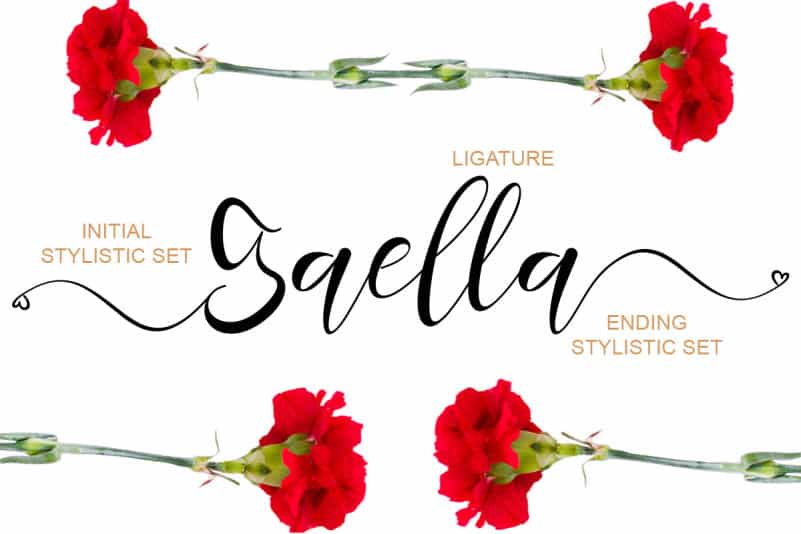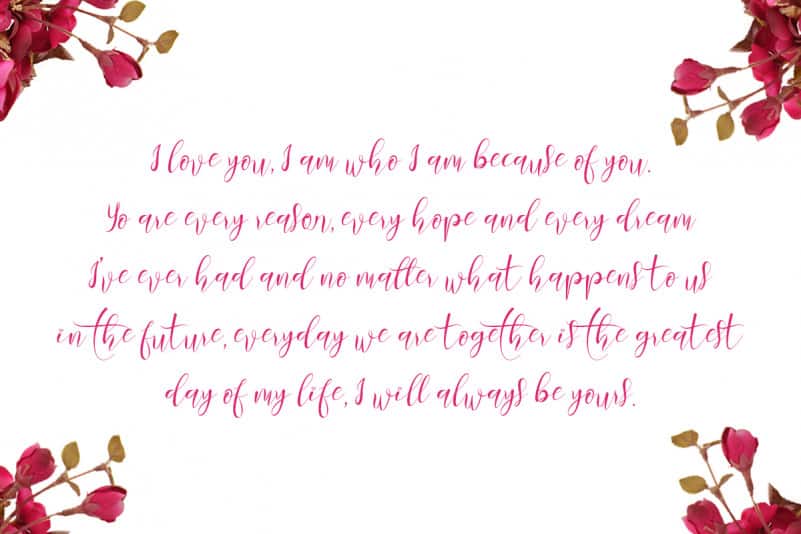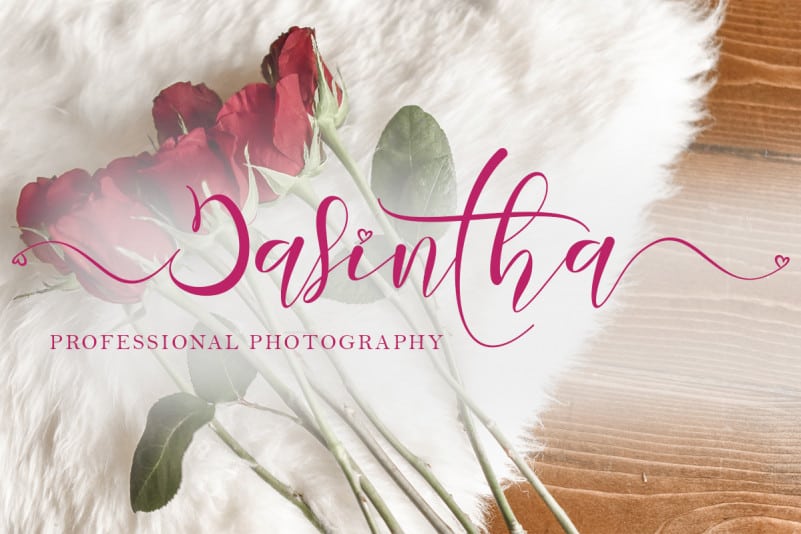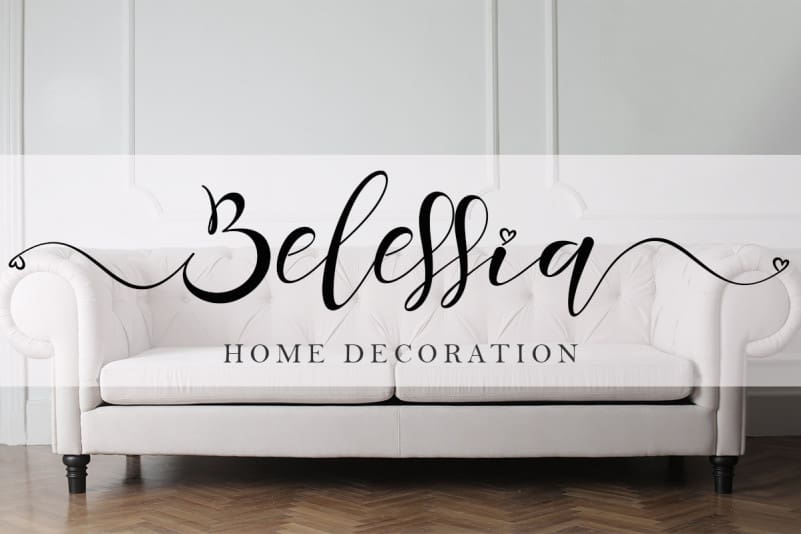
Monalissa Calligraphy Font is a very beautiful, high-quality font that is made with great love. This font can make your work more beautiful and elegant. This font is perfect for marketing your products, promoting your business, making quotes, weddings, invitation cards, logos, branding and status updates on social media, can also be used to beautify your beautiful moments, and others.